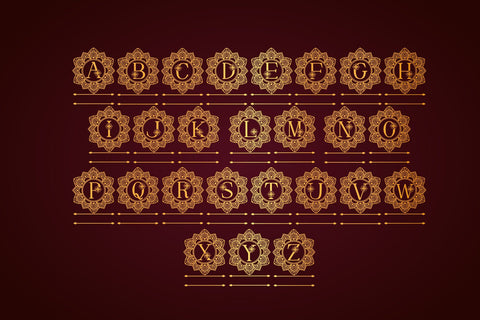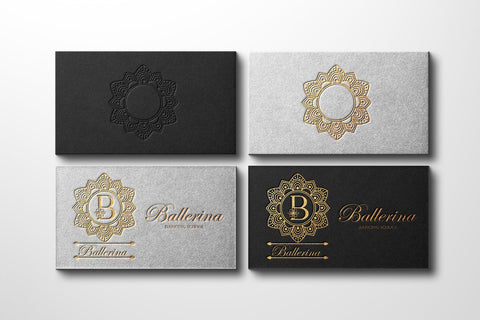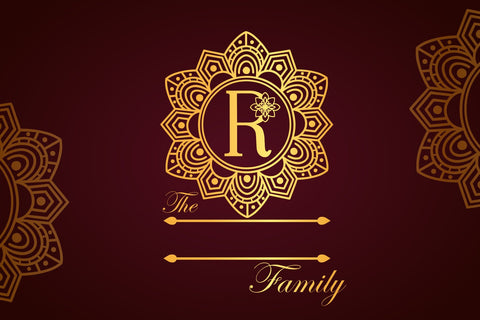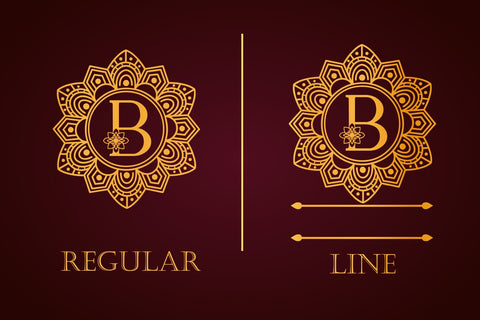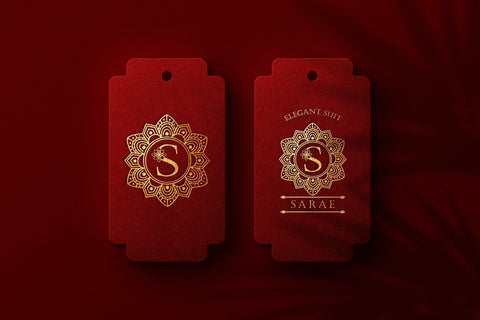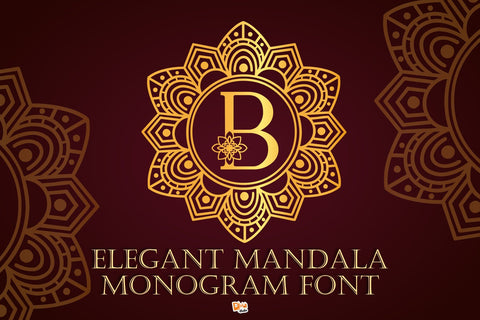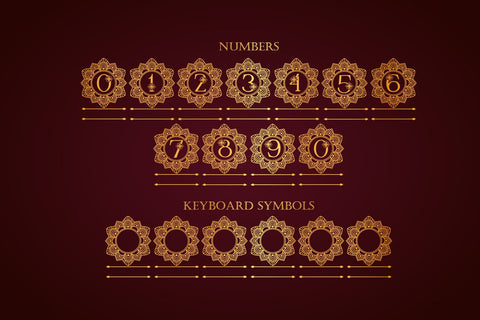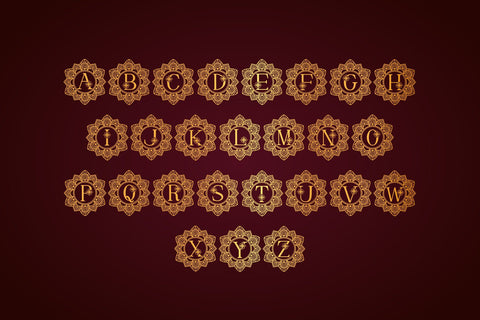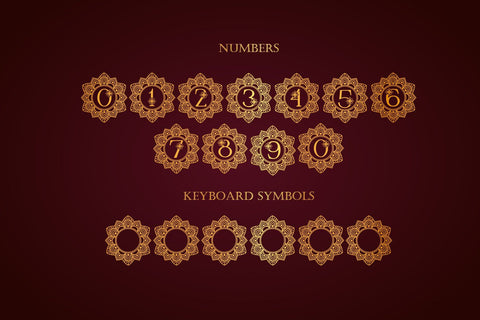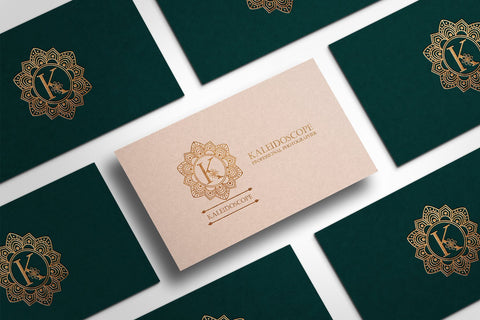
Elegant Mandala Monogram Font
Introducing this beauty, elegant and gorgeous mandala monogram font.
Make your design more exclusive by using this monogram, comes in two styles : with and without line.
- All in caps
- Two styles monogram : Regular and Line
- Numbers
- Empty frame ( entire keyboard symbols )